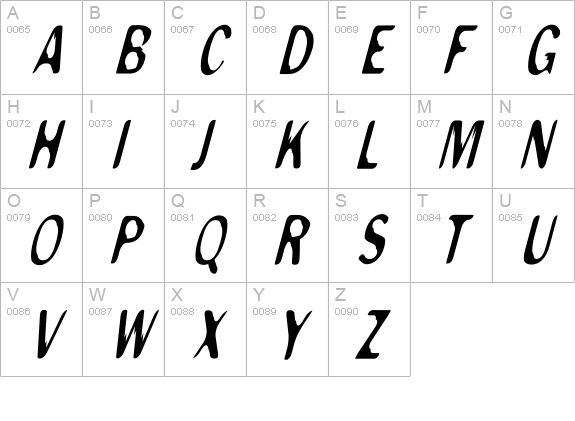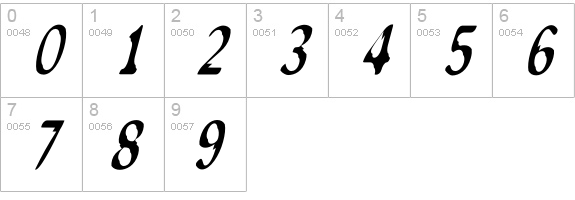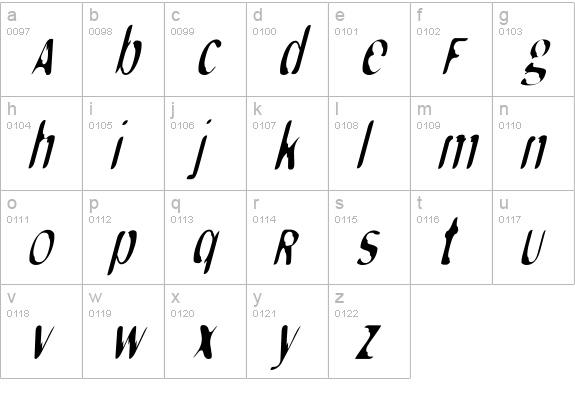
MonkeyCaughtStealing-ElongOblique Font Details
MonkeyCaughtStealing-ElongOblique is a dynamic and playful font that adds a touch of whimsy to any design. With its elongated and slightly oblique style, this font exudes a sense of movement and energy. Perfect for projects that require a fun and unique touch, MonkeyCaughtStealing-ElongOblique is sure to catch the eye and leave a lasting impression. Best of all, MonkeyCaughtStealing-ElongOblique is available for free download at FontsMarket.com. Simply head over to the website and grab this delightful font to enhance your creative projects. Whether you're working on a poster, logo, or any other design, MonkeyCaughtStealing-ElongOblique will bring a fresh and exciting element to your work. Don't miss out on this fantastic opportunity to add a touch of fun to your designs with this freely available font!